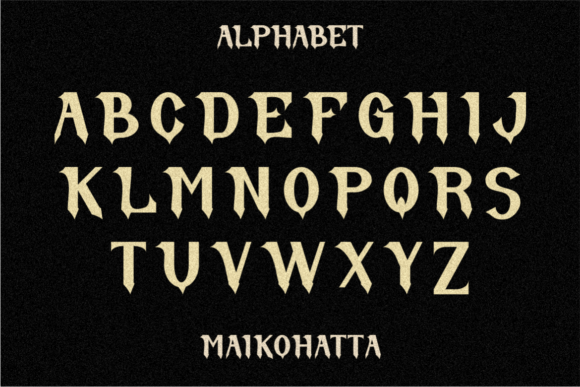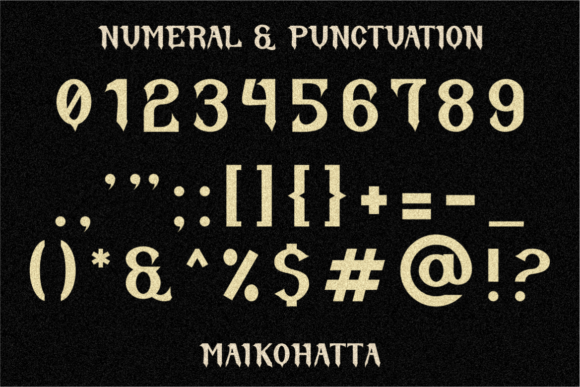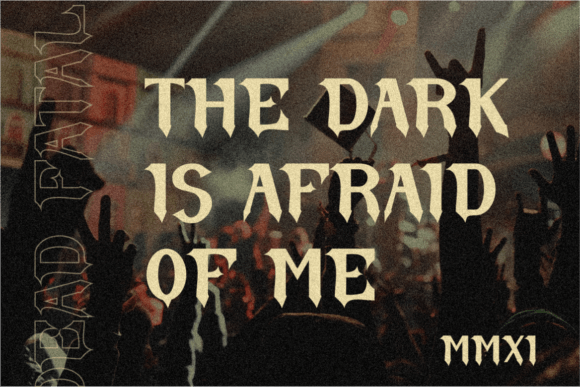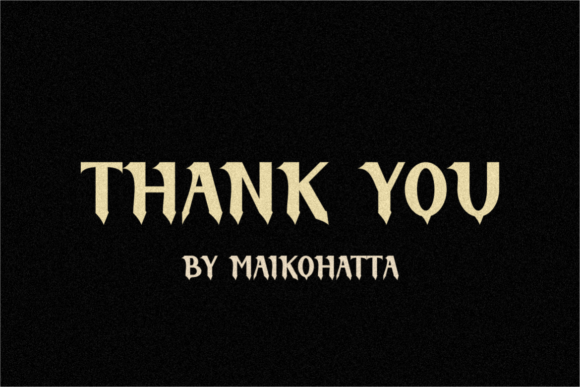
Introducing **DEAD FATALY**: The Ultimate Modern Blackletter Font for Horror Metal and Retro-Urban Designs
In the world of typography, fonts play a crucial role in conveying the tone and aesthetic of a design. For designers and crafters looking for a unique and bold statement, **DEAD FATALY** is a modern blackletter font that stands out from the rest. With its distinct, highly detailed, and horror metal-inspired style, **DEAD FATALY** is the perfect choice for exquisite retro-urban designs, tattoo business branding, logos, vintage designs, and more.
The Inspiration Behind **DEAD FATALY**
The **DEAD FATALY** font is inspired by the darker side of life, drawing from the world of horror and metal music. Its intricate details and bold lines evoke a sense of power and intensity, making it an ideal choice for designs that require a strong and edgy look. Whether you’re creating a logo for a tattoo parlor, designing a vintage-inspired poster, or crafting a bold statement piece, **DEAD FATALY** is the perfect font to make your design stand out.
Key Features of **DEAD FATALY**
- Distinct and Highly Detailed Design: **DEAD FATALY** boasts a unique and intricate design that sets it apart from other blackletter fonts. Its highly detailed style makes it perfect for designs that require a high level of sophistication and elegance.
- Horror Metal Inspiration: The font’s horror metal inspiration gives it a bold and edgy look that’s perfect for designs that require a strong statement.
- Retro-Urban Style: **DEAD FATALY** has a retro-urban style that’s perfect for designs that require a vintage or distressed look.
- Multilingual Support: The font supports multiple languages, making it a great choice for designers who work with international clients.
Use Cases for **DEAD FATALY**
**DEAD FATALY** is a versatile font that can be used in a variety of design projects, including:
- Tattoo Business Branding: The font’s bold and edgy style makes it perfect for tattoo parlors, body art studios, and other businesses in the tattoo industry.
- Logo Design: **DEAD FATALY** is ideal for designing logos that require a strong and bold statement.
- Vintage Designs: The font’s retro-urban style makes it perfect for vintage-inspired designs, such as posters, flyers, and brochures.
- Horror and Metal Music Designs: The font’s horror metal inspiration makes it a great choice for designs related to the horror and metal music genres.
Tips for Using **DEAD FATALY**
To get the most out of **DEAD FATALY**, here are some tips to keep in mind:
- Use it with Contrast: Pair **DEAD FATALY** with a clean and simple font to create contrast and make your design stand out.
- Experiment with Colors: The font’s bold style makes it perfect for designs with bold and bright colors.
- Pay Attention to Legibility: While **DEAD FATALY** is a bold font, make sure to adjust the size and style to ensure legibility.
**DEAD FATALY** is a unique and powerful modern blackletter font that’s perfect for designers and crafters looking for a bold statement piece. With its distinct, highly detailed, and horror metal-inspired style, **DEAD FATALY** is ideal for exquisite retro-urban designs, tattoo business branding, logos, vintage designs, and more. Download **DEAD FATALY** today and take your designs to the next level!